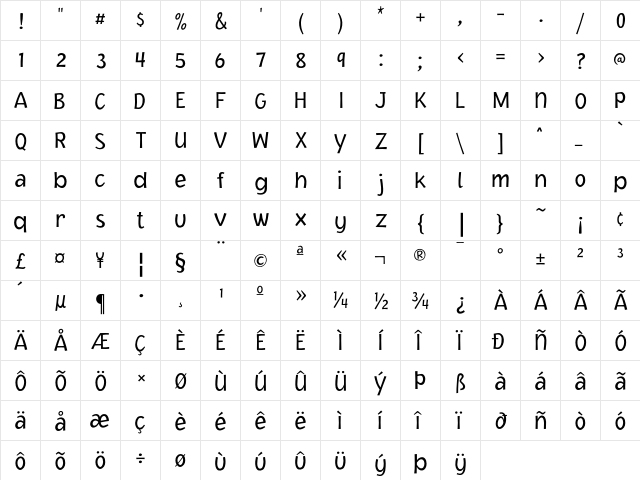
JacobyICG Light
Design Context for JacobyICG Typeface
JacobyICG is a composed and adaptable typeface that performs quietly and consistently across a wide range of design contexts. The delicate stroke weight brings airiness and refinement to layouts.